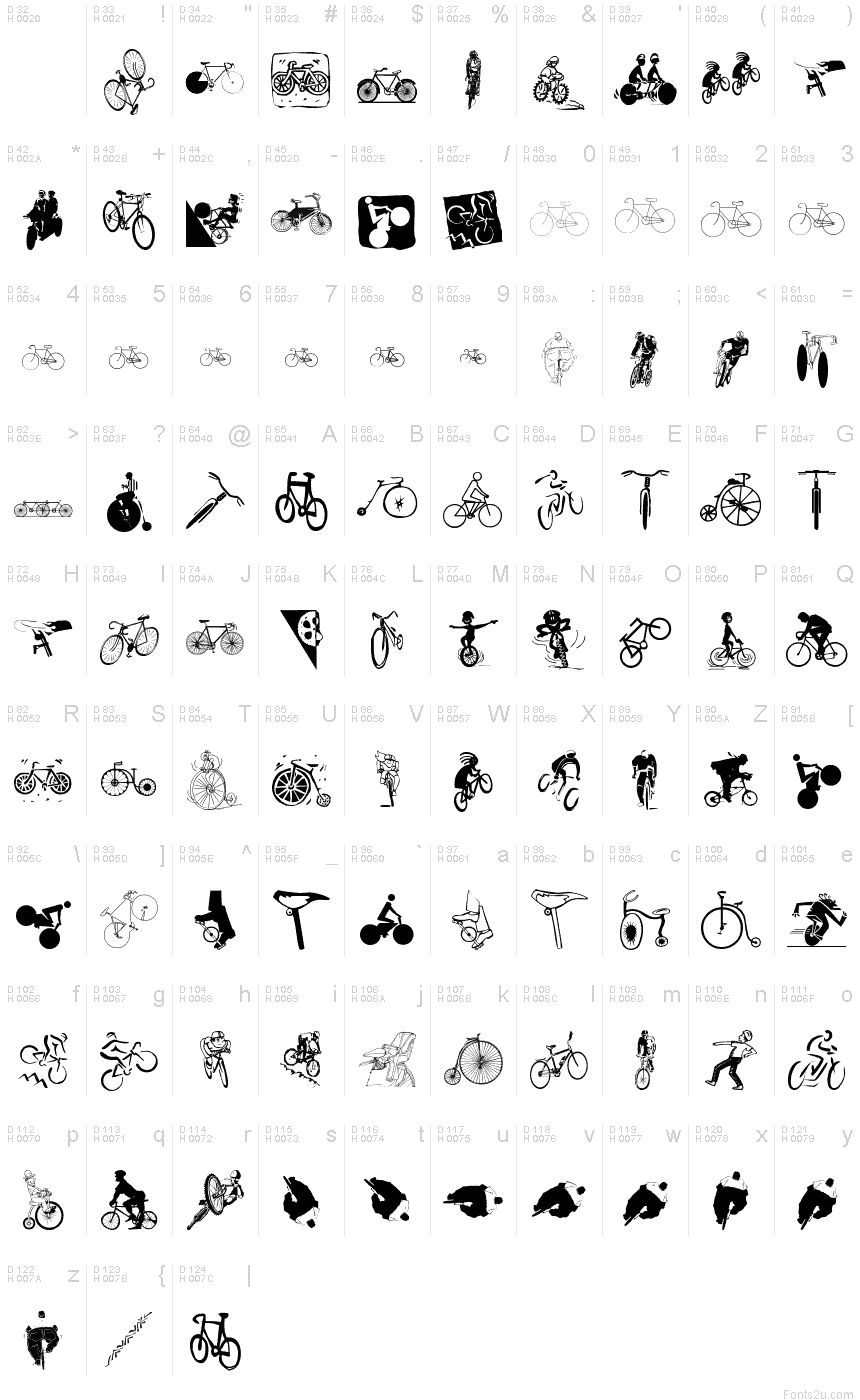
Cycling
Cycling font by M. Klein is a free sport dingbat typeface that turns every keystroke into a different bike, rider, or action scene. From relaxed commuters to downhill jumps and skidding crashes, the black‑ink silhouettes feel like quick sketches caught mid-motion. The rough, hand-drawn lines give your layouts a scuffed, road-tested energy that’s hard to fake with stock icons.
Using Cycling font, you can instantly build visual stories for race posters, charity ride flyers, infographics, trail maps, bike shop signage, club logos, and screen-printed merch. Because this free font reads clearly even at small sizes, it also works neatly in web banners and navigation icons. Pair these dingbats with a clean geometric sans serif and keep type in a single weight so the lively illustrations stay in the spotlight.